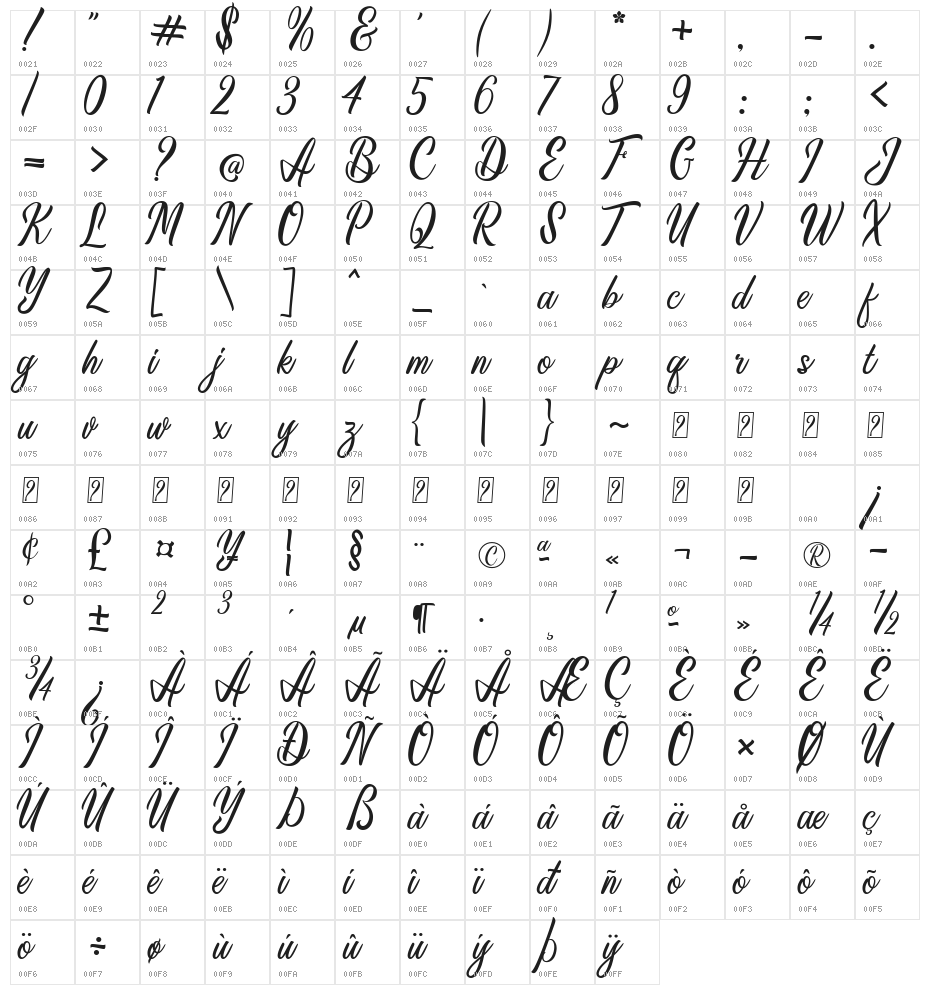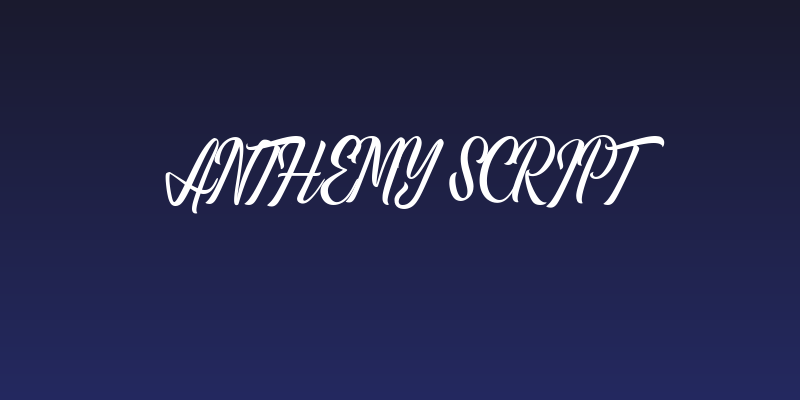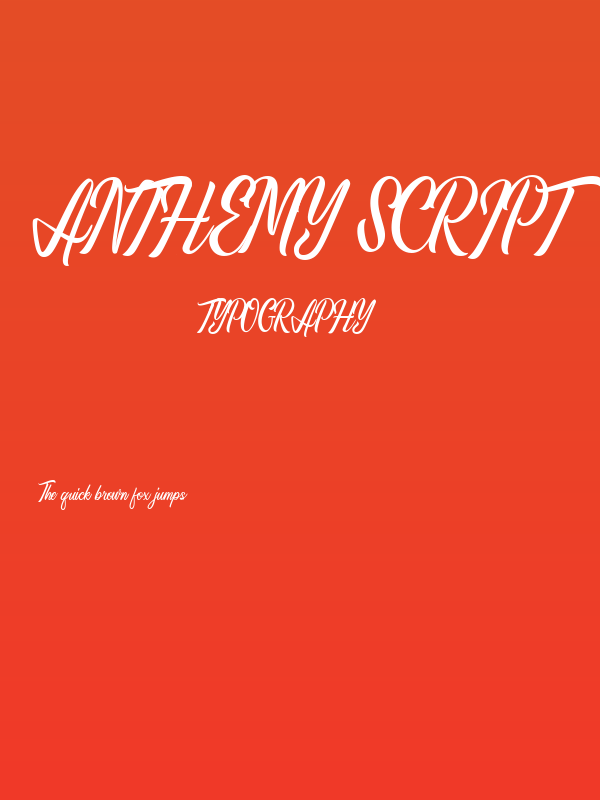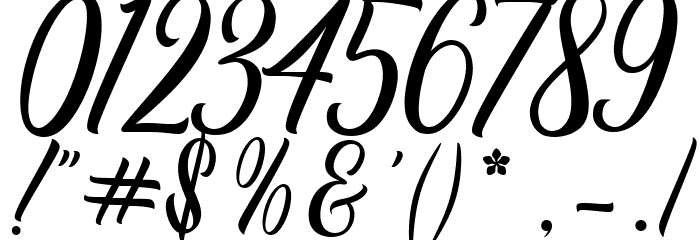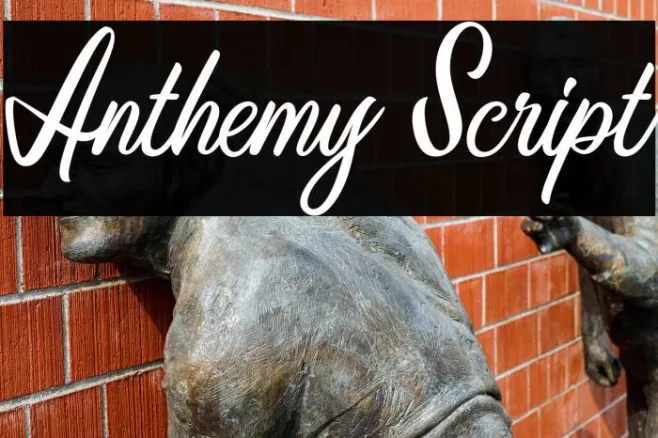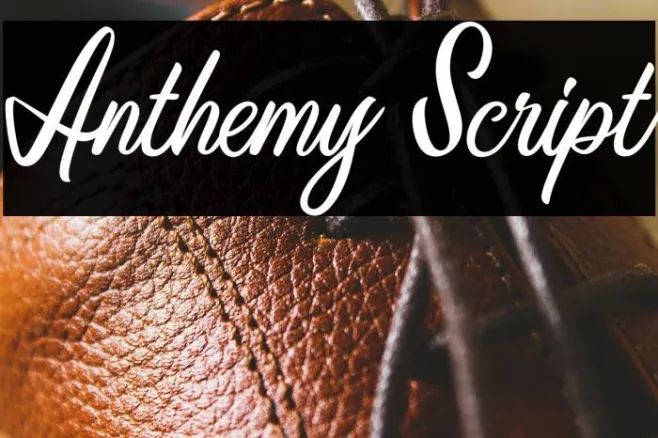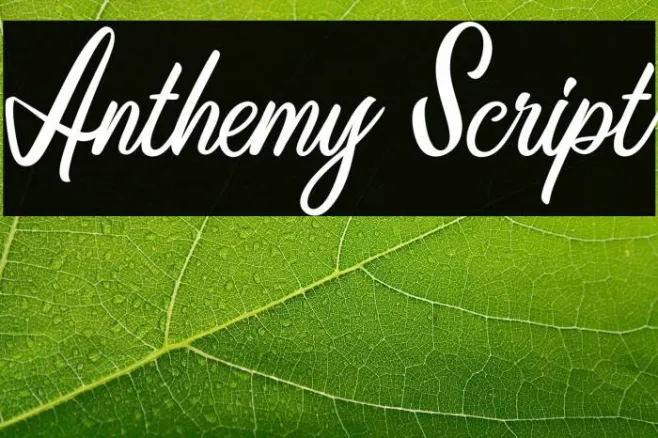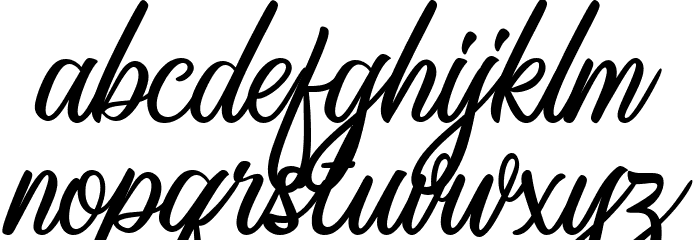
Anthemy Script Font
Anthemy Script Description
This font features a flowing, cursive style with elegant, sweeping strokes that give it a sophisticated and artistic appearance. The letters are interconnected, creating a seamless and fluid look that is characteristic of script fonts. The uppercase letters are bold and prominent, while the lowercase letters maintain a consistent flow, enhancing readability. The numerals and special characters are designed to match the overall aesthetic, with a similar emphasis on curves and fluidity. This font is ideal for projects that require a touch of elegance and creativity.
| Overall Style | Elegant, Artistic |